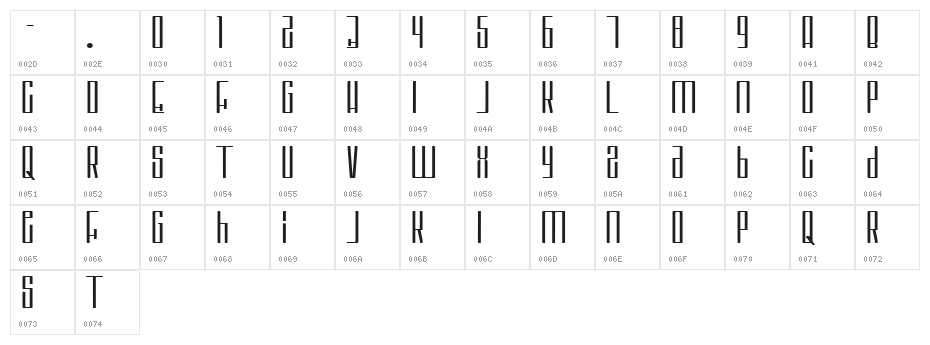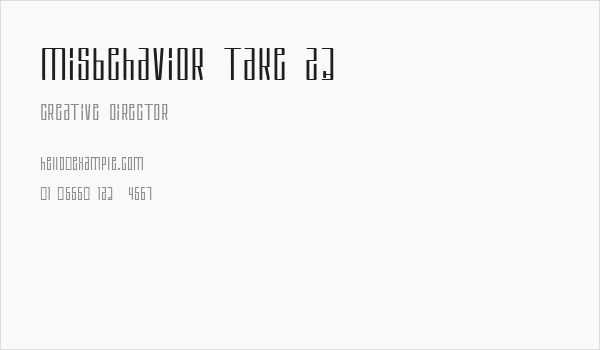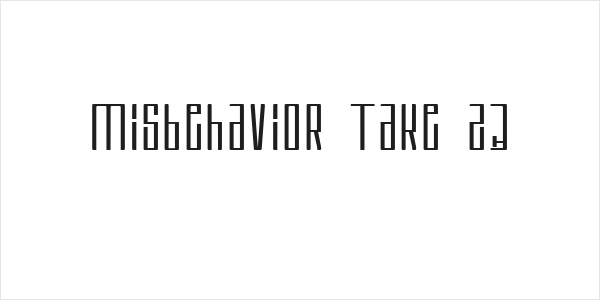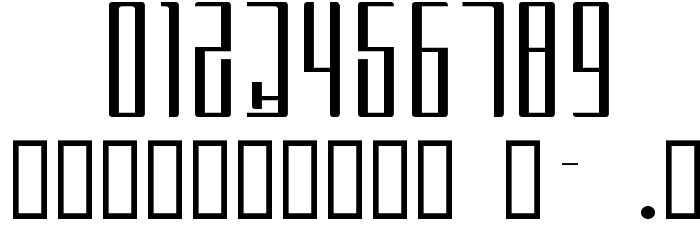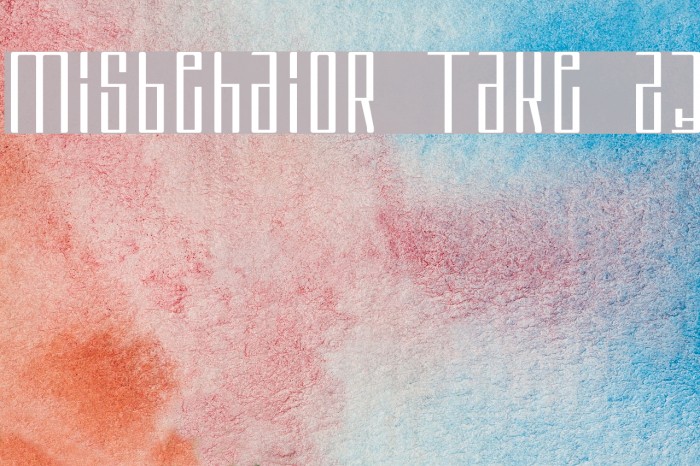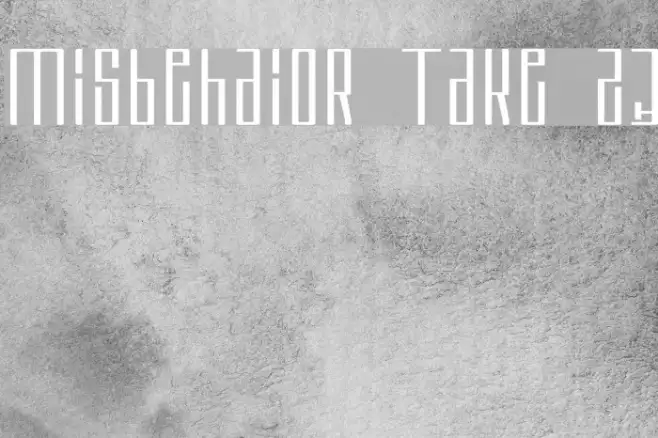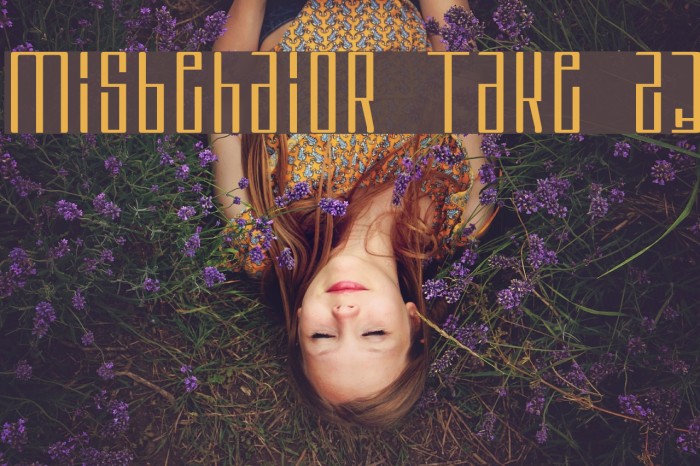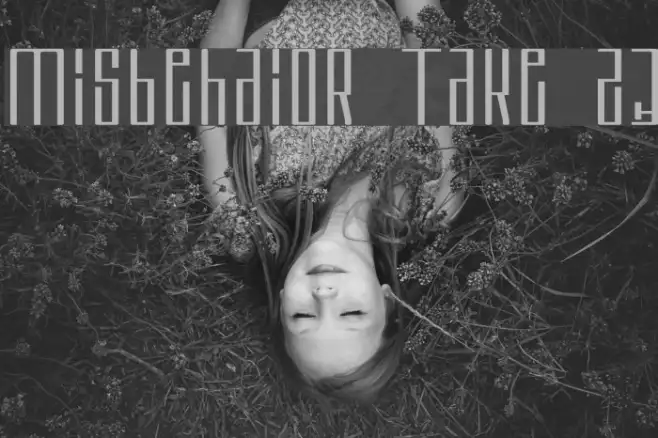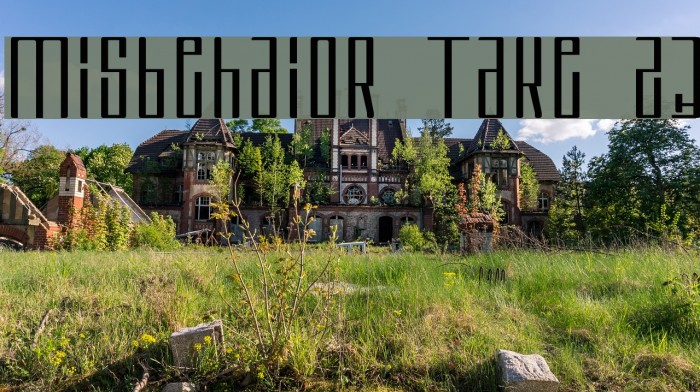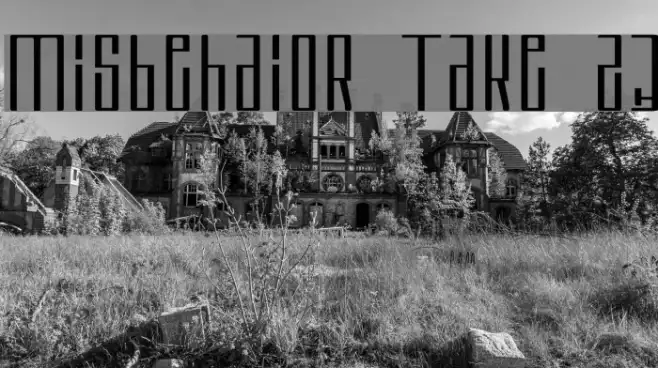
Misbehavior Take 23 Font
Misbehavior Take 23 Description
This font features a modern and geometric design with elongated, narrow characters that give it a distinct and futuristic appearance. The uppercase letters are tall and rectangular, with consistent stroke widths that create a uniform look. The lowercase letters maintain the same geometric style, providing a cohesive aesthetic throughout. Numbers and special characters follow the same design principles, ensuring a seamless integration with the alphabet. The overall style is clean and minimalistic, making it suitable for projects that require a contemporary and edgy feel. The font's structure is highly legible, even at smaller sizes, due to its clear and precise lines.
| Proposed Projects | Ideal for tech-related branding, futuristic posters, modern web design, and innovative product packaging. |